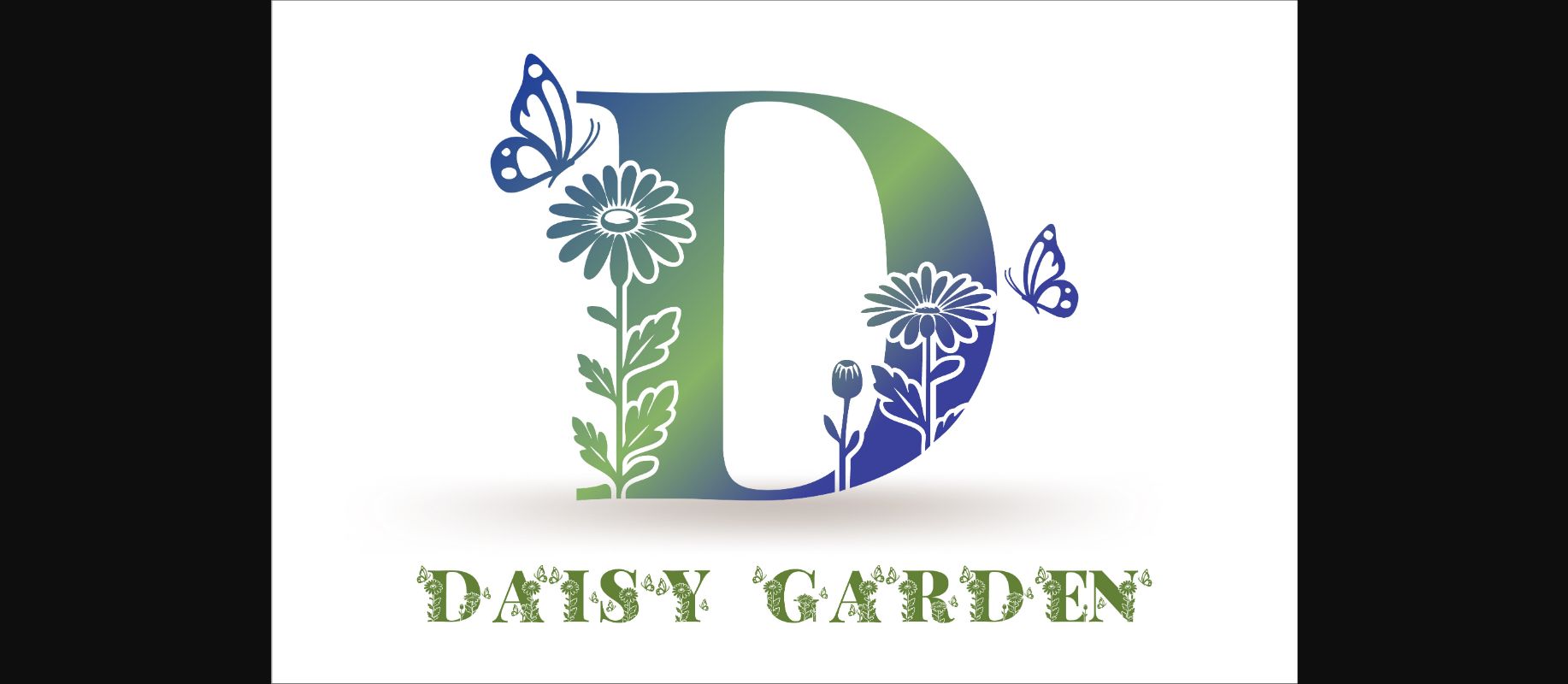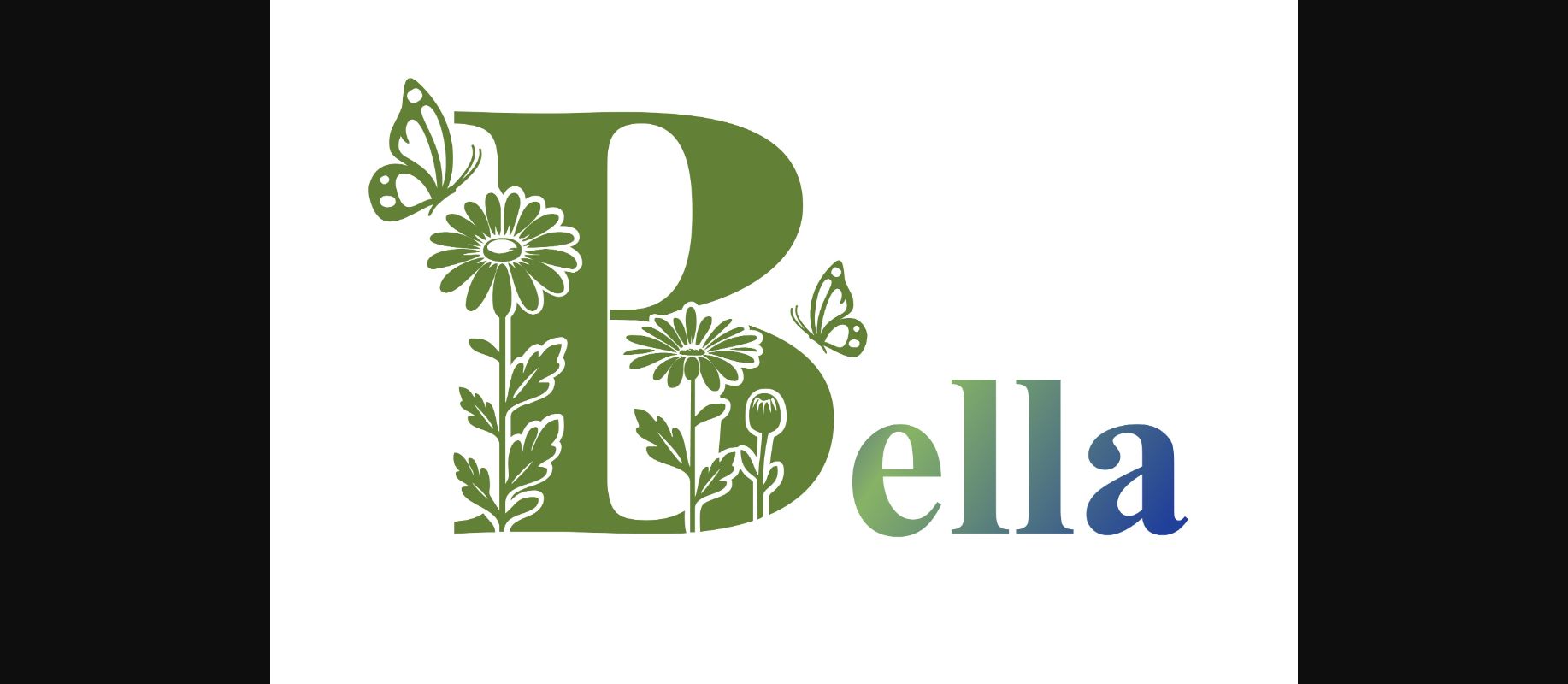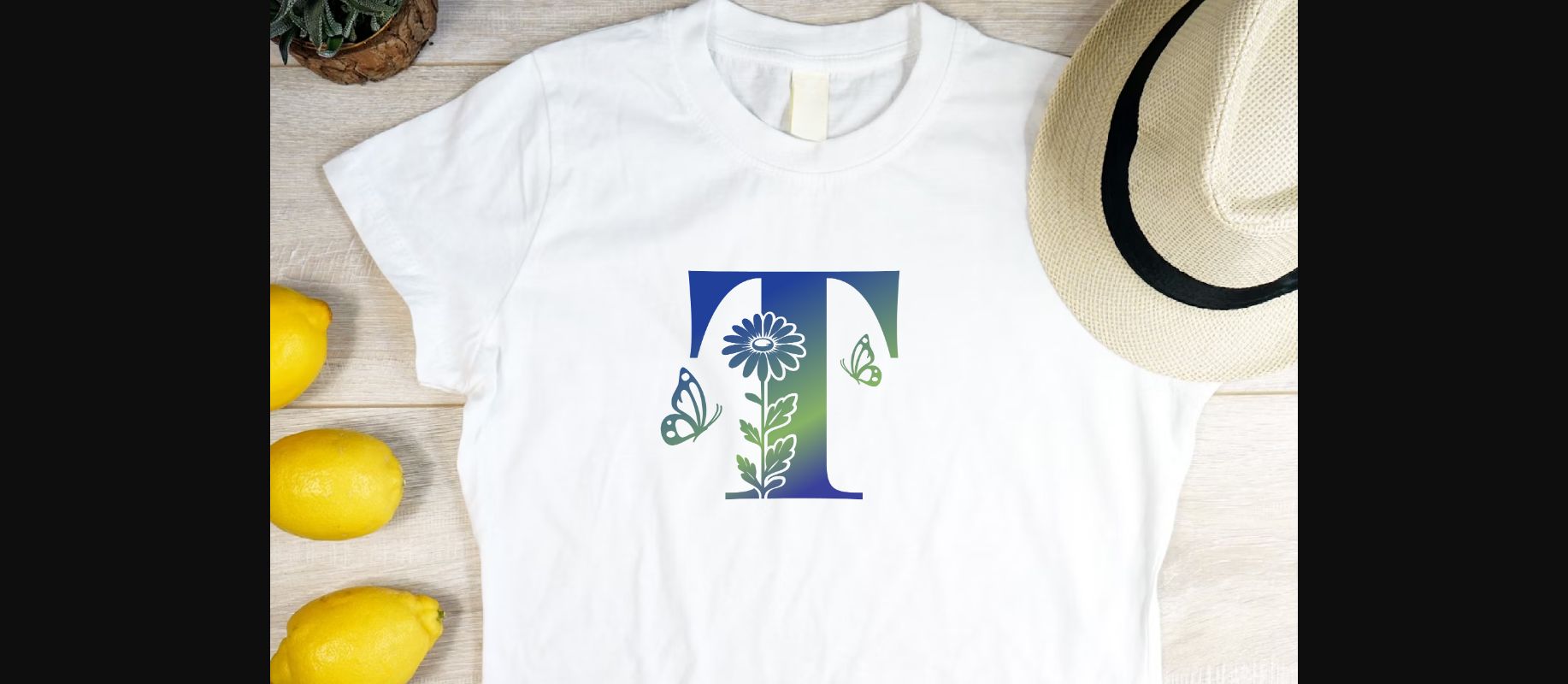
About Daisy Garden Font
Daisy Garden is an elegant decorative font, featuring lovely ornaments. Fall for its ravishing style and use it to create gorgeous designs.